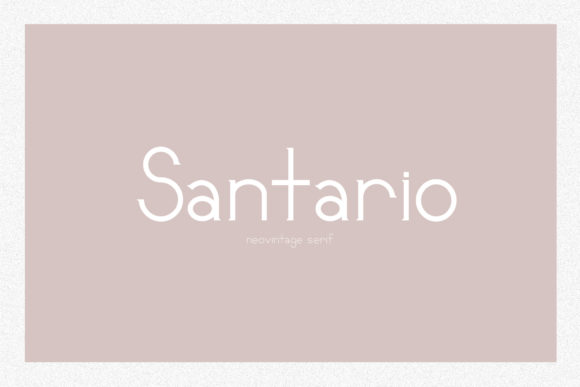
Feast your eyes on Santario, the captivating serif font poised to add a dash of elegance and sophistication to your design endeavors. This font radiates a distinct contemporary charm, lending an air of refinement to your digital and print projects. Its meticulously crafted curves and sharp serifs create a visual symphony that dances across the page, inviting readers to immerse themselves in your message.
Santario is more than just a font; it's an artistic expression, an extension of your creative vision. Its light and airy strokes infuse a sense of grace and fluidity into your words, while the balanced letterforms exude a timeless appeal. Whether you're designing wedding invitations, crafting social media posts, or creating marketing materials, Santario effortlessly elevates your designs, captivating your audience with its aesthetic allure.
Immerse yourself in a world of creative possibilities with Santario. Its versatile nature lends itself seamlessly to a myriad of design applications. Whether you seek to create stunning logos, eye-catching headlines, or captivating body text, Santario rises to the occasion, delivering exceptional results that command attention. Unleash your imagination and let Santario guide you towards design excellence, transforming your projects into masterpieces that resonate with your audience.
Santario is not merely a collection of letters and symbols; it's an integral part of your creative journey. It's the brushstroke that brings your vision to life, the melody that harmonizes your message, and the dance that captivates your audience. Let Santario infuse your designs with a touch of magic, leaving an indelible impression on all who encounter your creations.
Embrace Santario and embark on a creative odyssey where beauty and functionality intertwine. Witness how this stunning font transforms your designs into captivating works of art, leaving your audience spellbound. Download Santario today and unlock the gateway to a world of creative possibilities, where your vision knows no bounds.